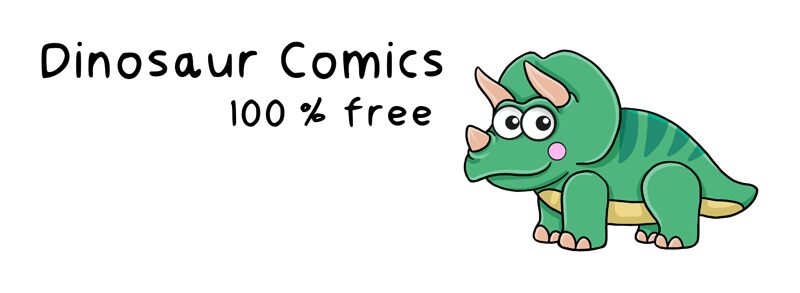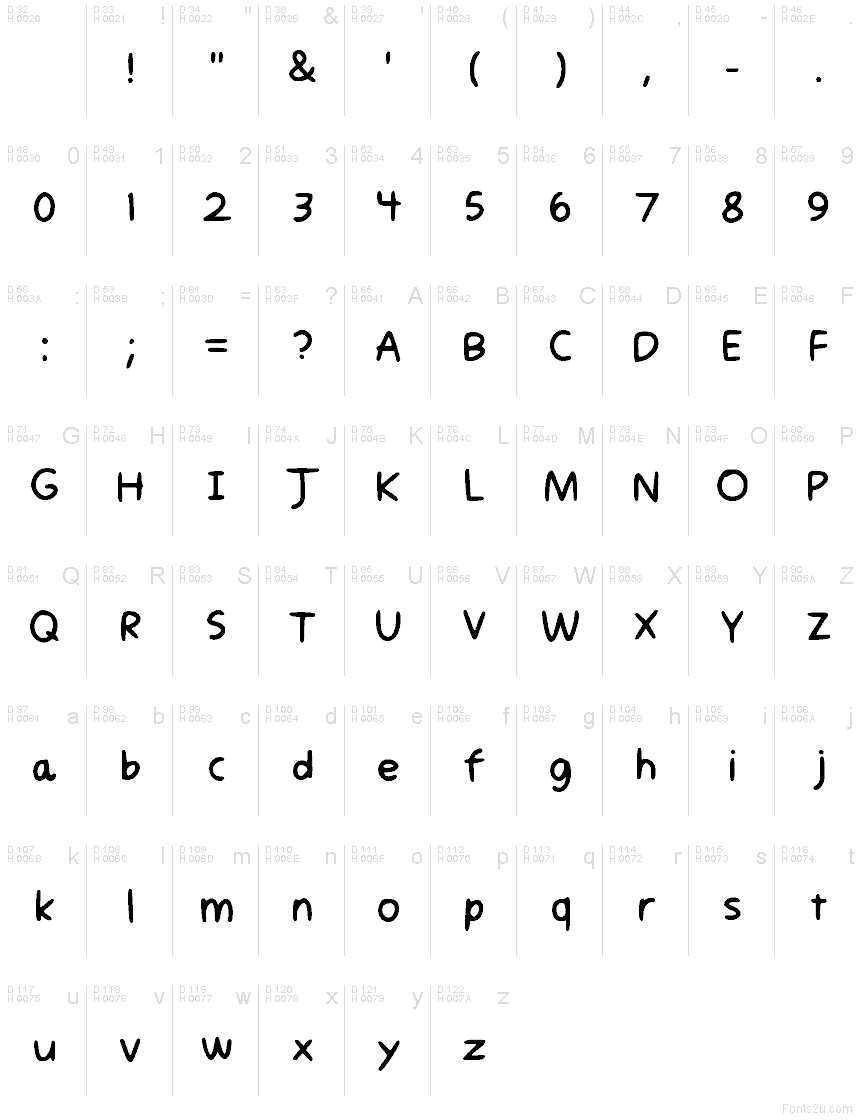
Dinosaur Comics Regular
Dinosaur Comics font by Kyle Nathan is a free handwritten font that captures the scruffy, chatty energy of indie webcomics. The letters are loose, rounded, and slightly wobbly, like they were written quickly in a notebook margin, which gives every line a friendly, conversational tone. It stays legible even when the text gets dense, so your jokes, captions, and asides feel spontaneous without turning into a mess.
Using Dinosaur Comics, this free font shines in comic dialogue, zines, kid-friendly posters, YouTube thumbnails, informal newsletters, and playful branding. The even spacing and relaxed rhythm keep long passages readable while still feeling personal and off-the-cuff. Pair it with a simple geometric sans for UI or small print, and let Dinosaur Comics handle the loud, fun bits like titles, speech bubbles, and punchlines.